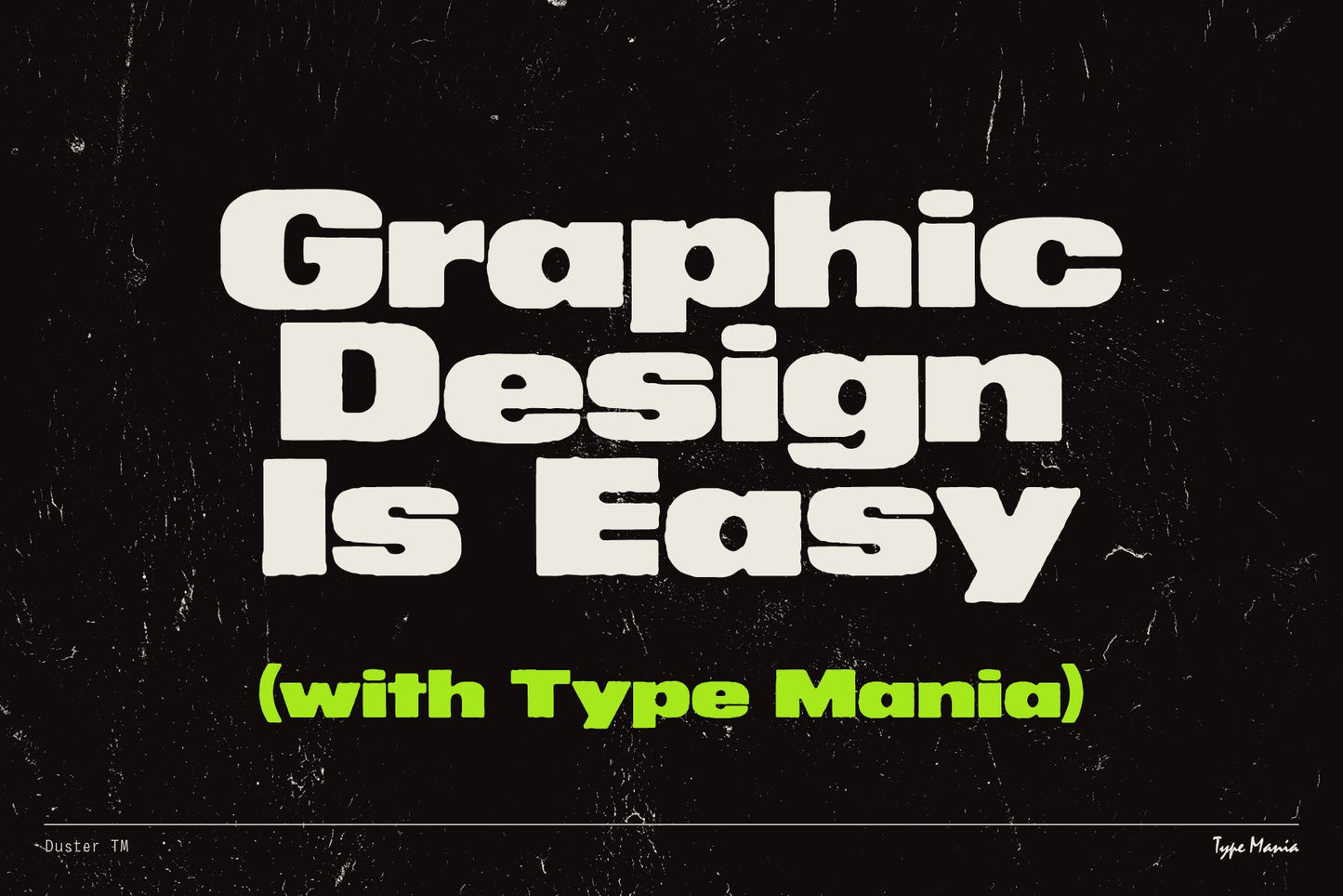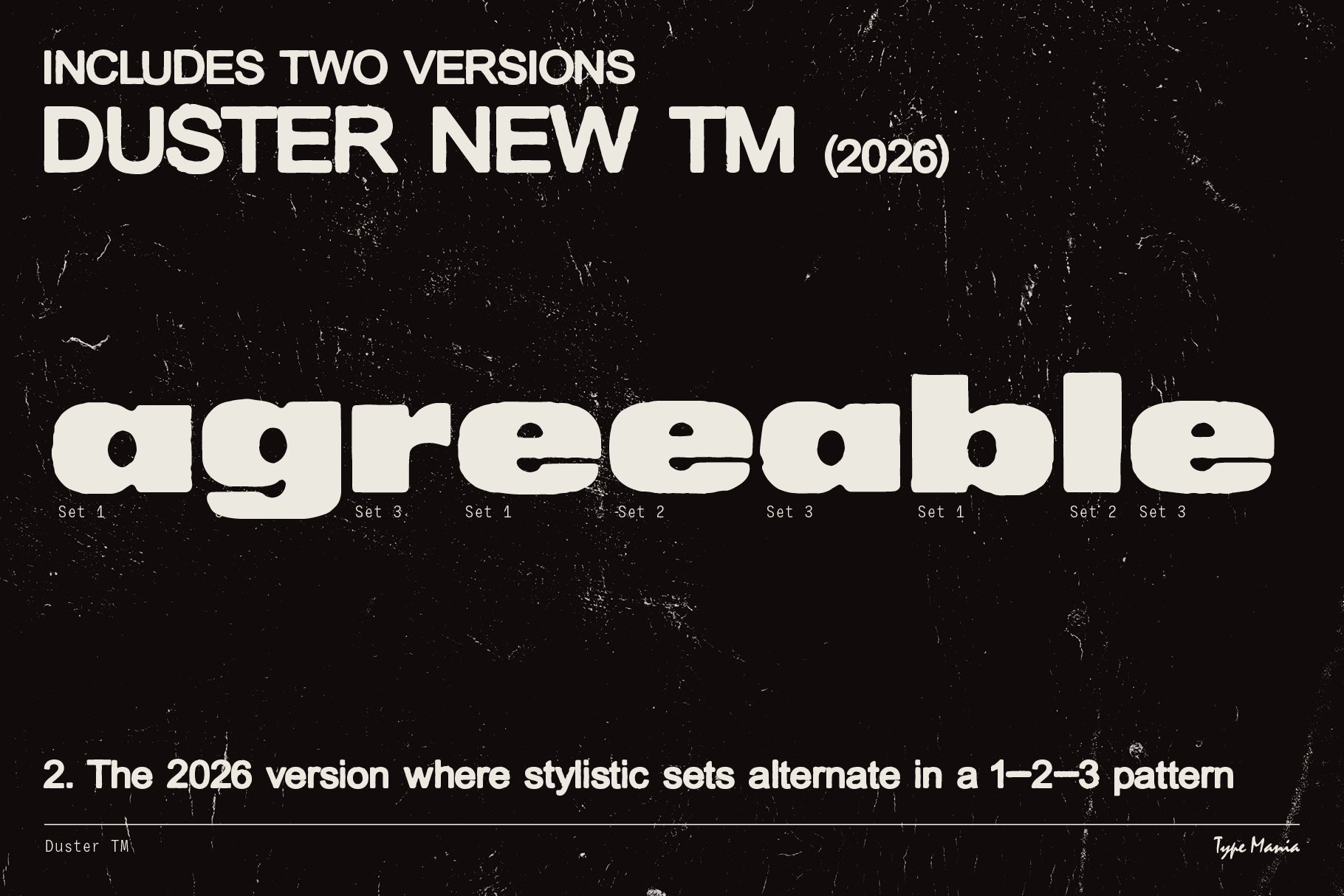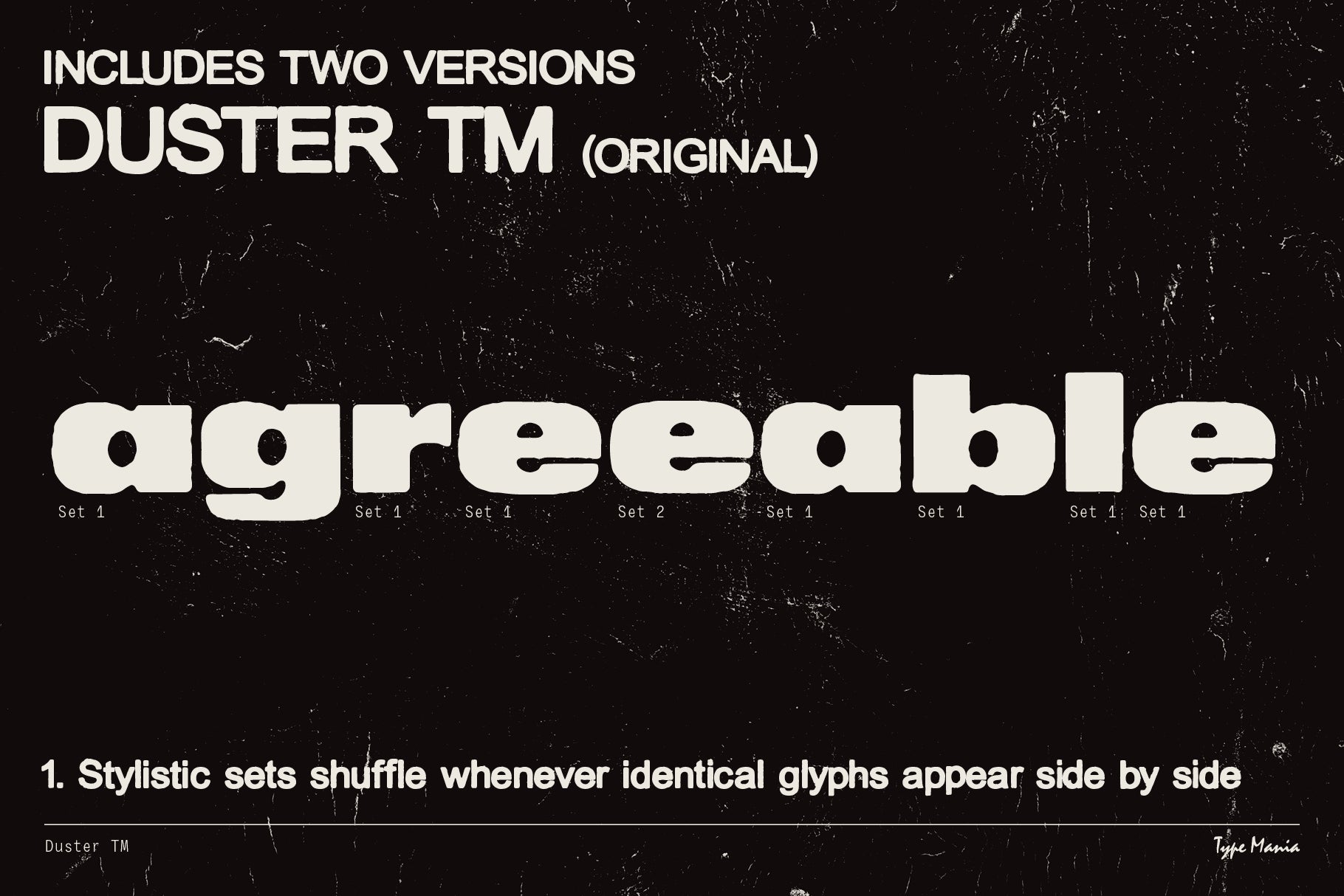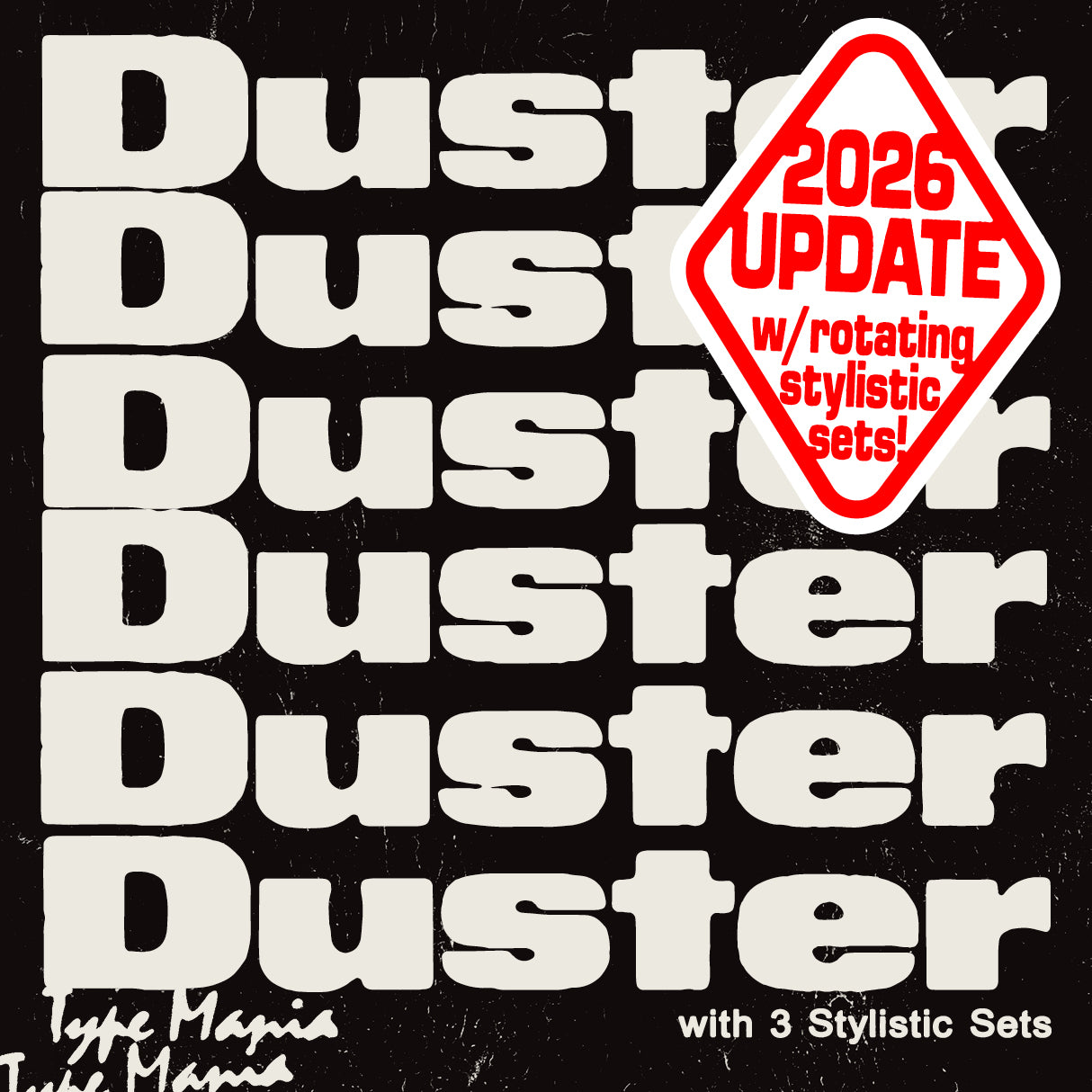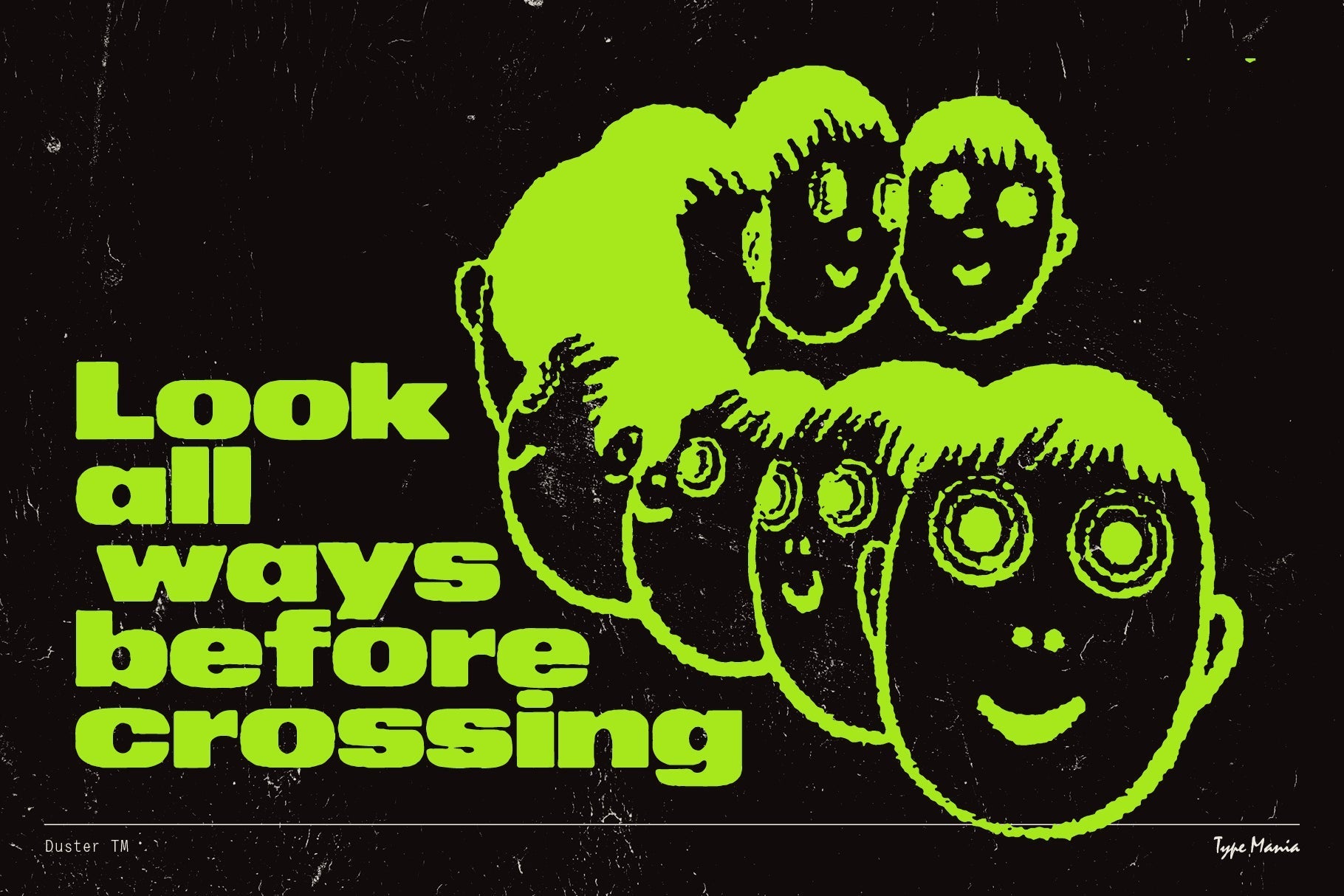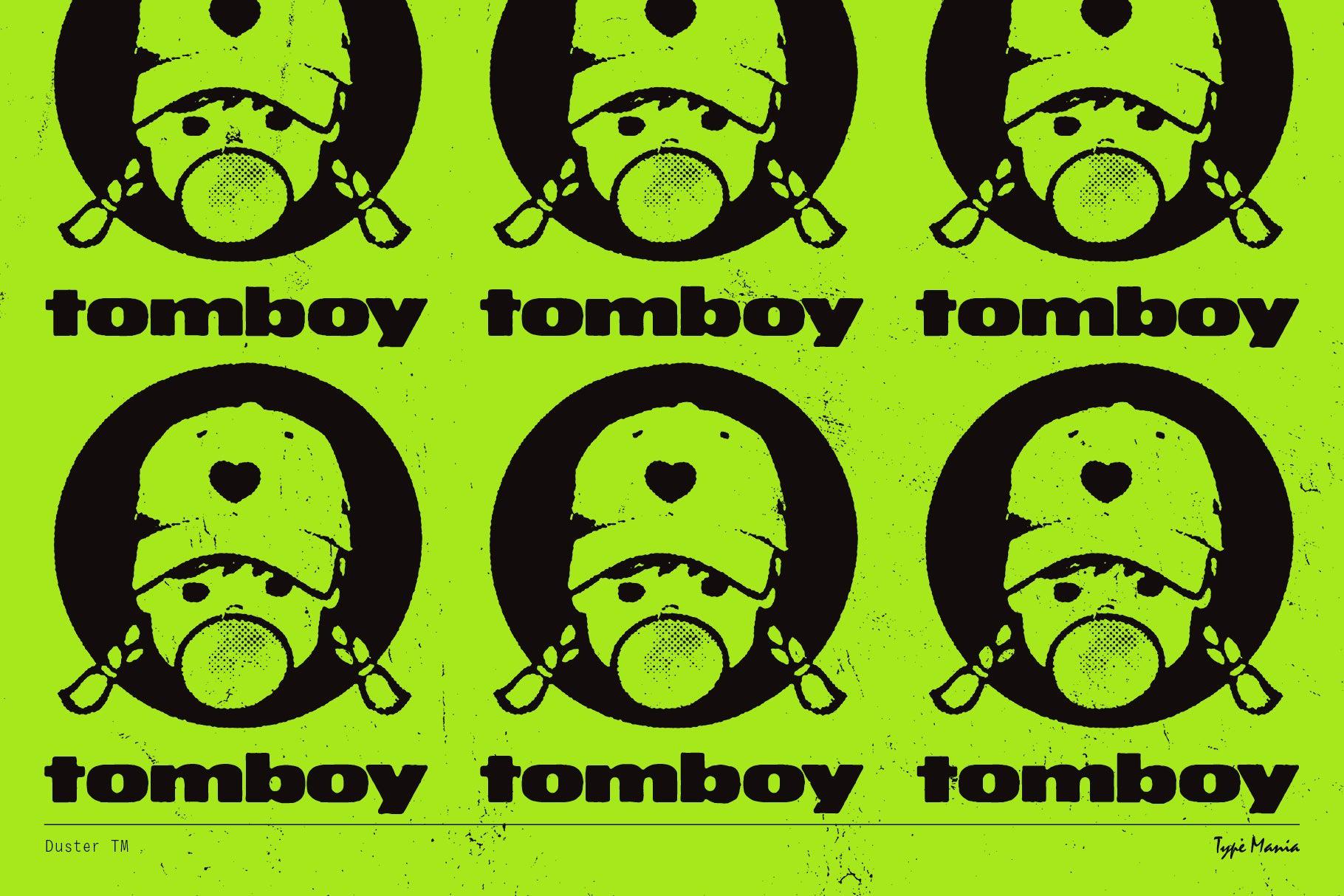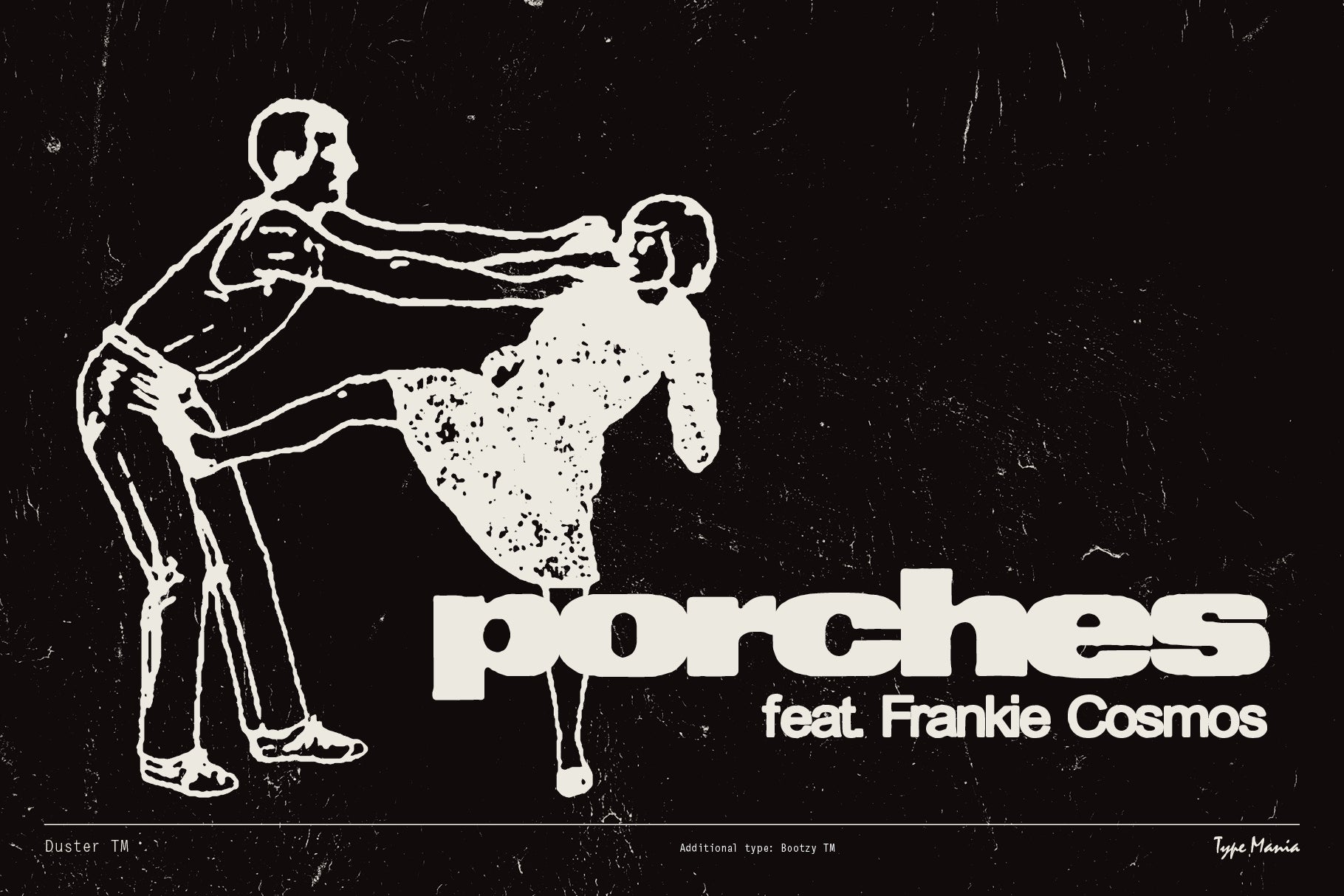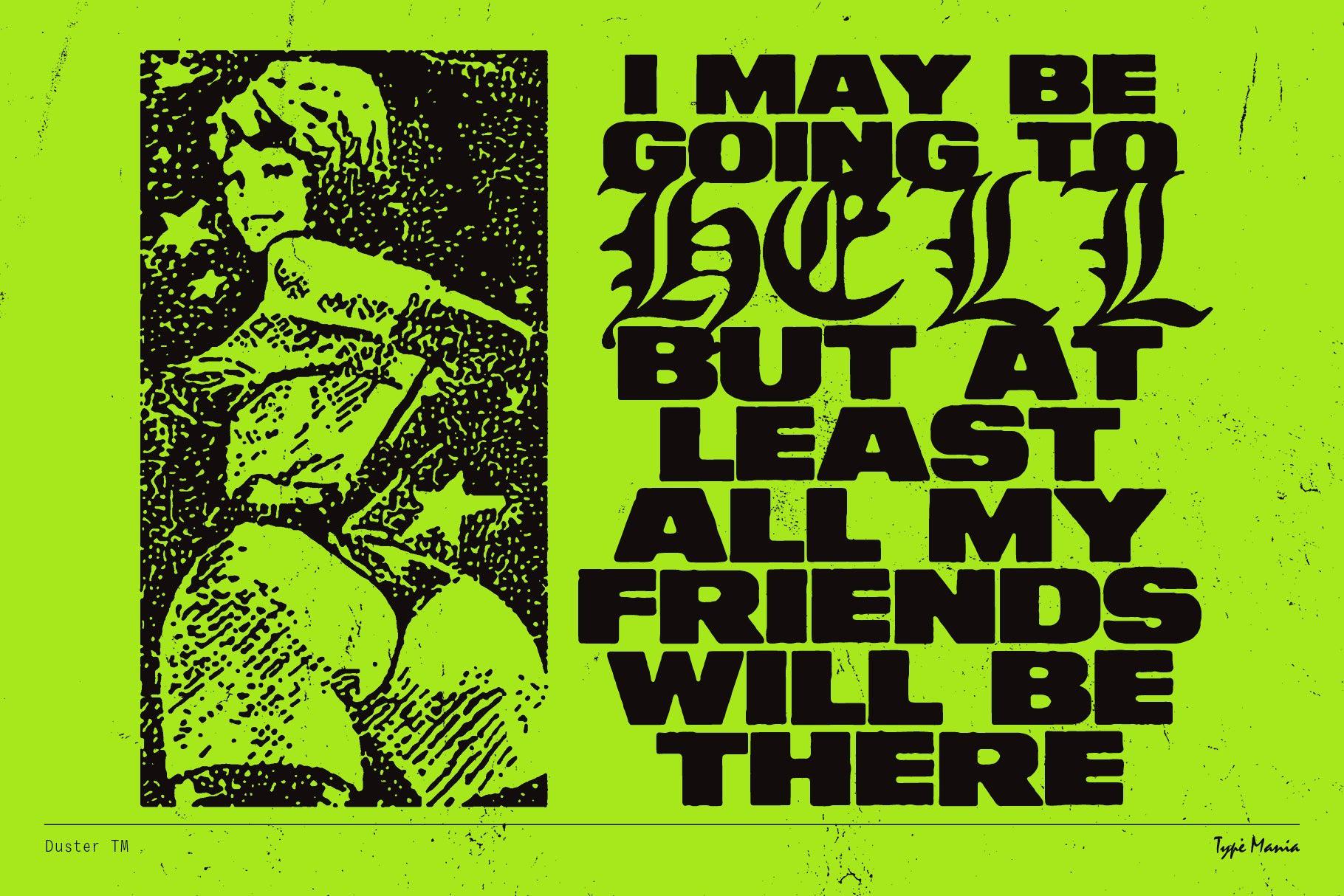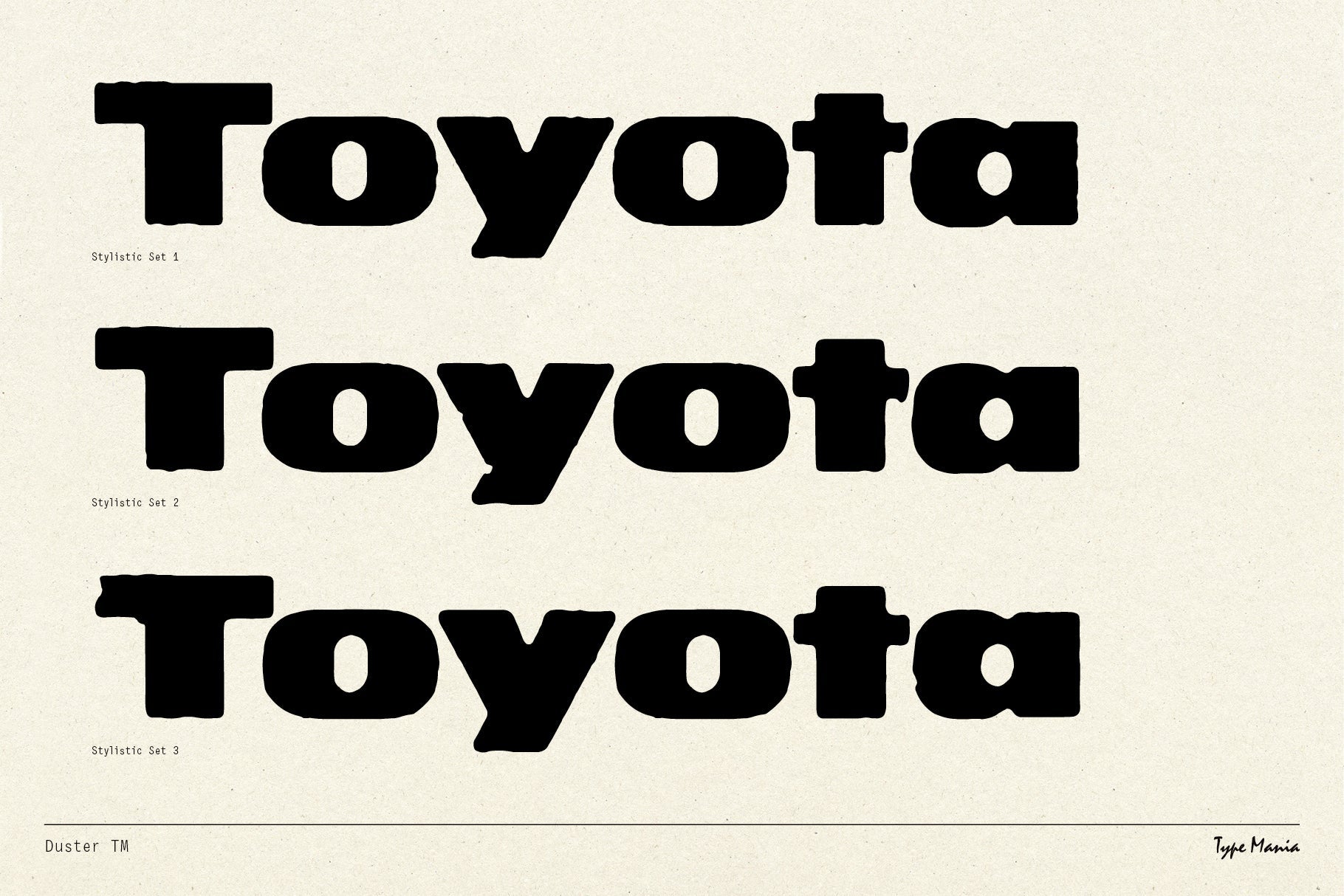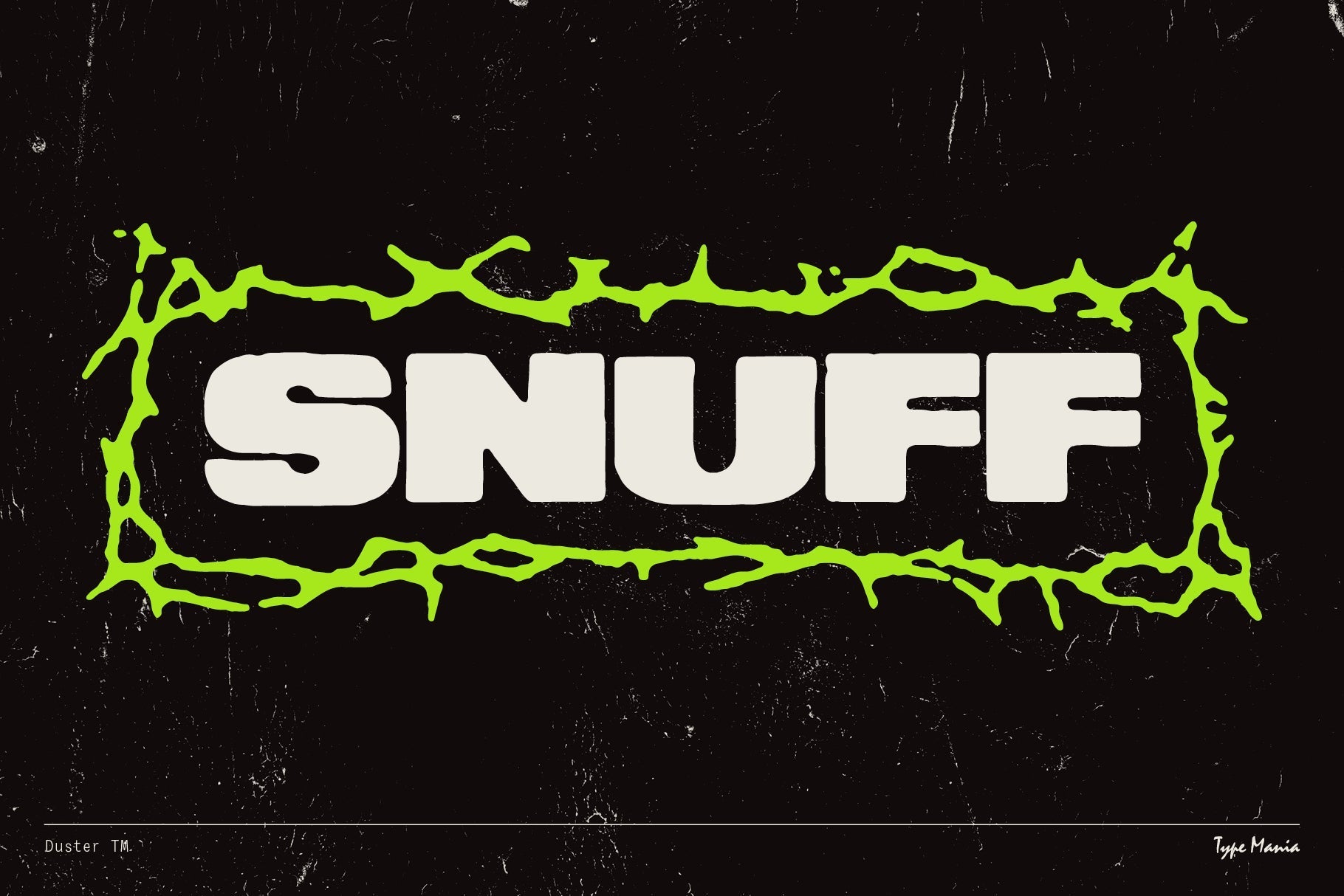
Duster TM
With its weathered, worn-in look, Duster TM adds a gritty vibe to any project, be it a flyer for an underground rave event or social media campaign. With 3 stylistic sets you can create dynamic layouts at e-z. Get rugged, get bold, get Duster TM today.
- 3 stylistic sets
- Includes two versions of the font: 1. Stylistic sets shuffle whenever identical glyphs appear side by side, 2. A new version where stylistic sets alternate in a 1–2–3 pattern, when the Contextual Alternates is turned on.